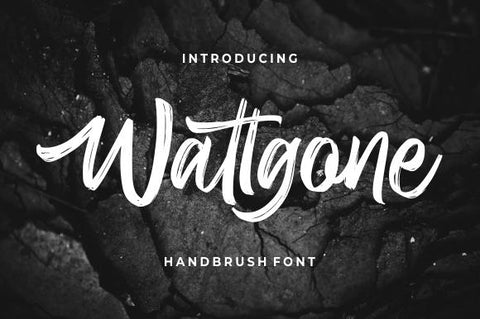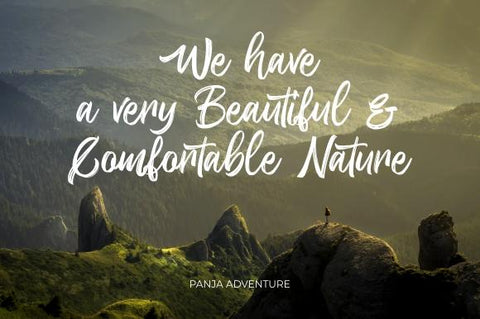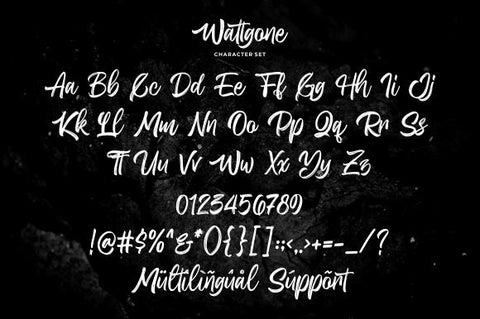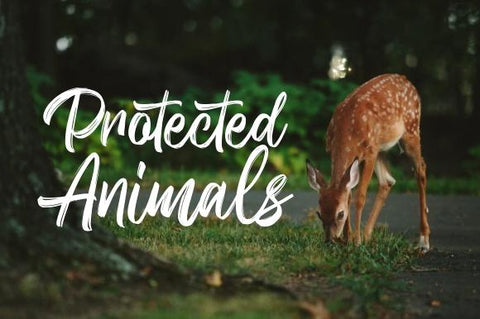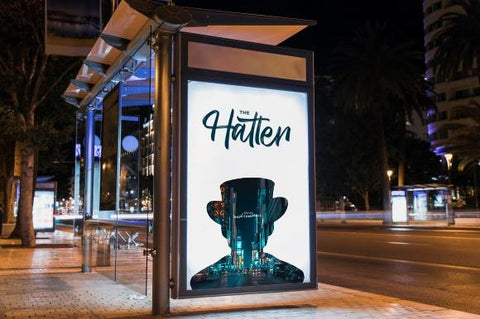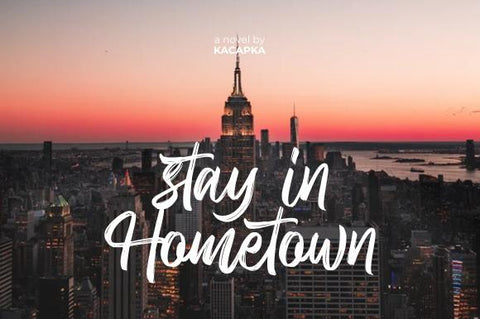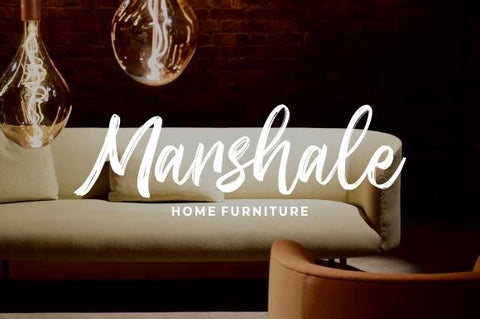
Wattgone – Handbrush Font
Introducing Wattgone – Handbrush Font
Wattgone combines attractive curves with a fresh urban edge delivering a stylish script which is guaranteed to add an eye-catching appeal to your logo designs, brand imagery, handwritten quotes, product packaging, merchandise & social media posts
• Detailed dry brush